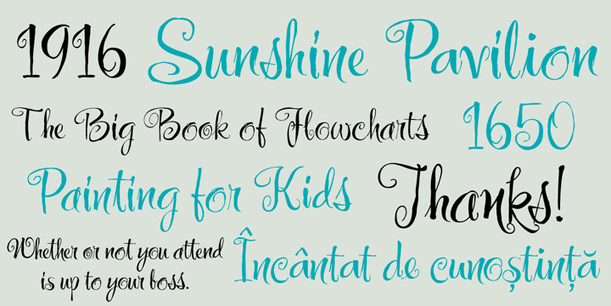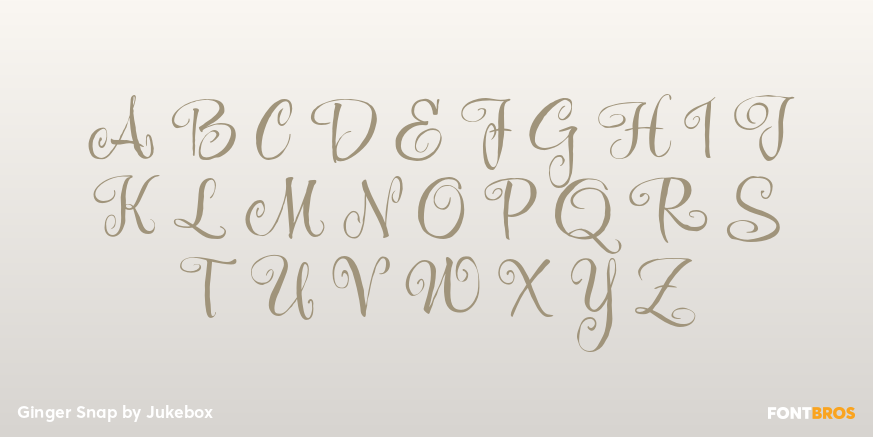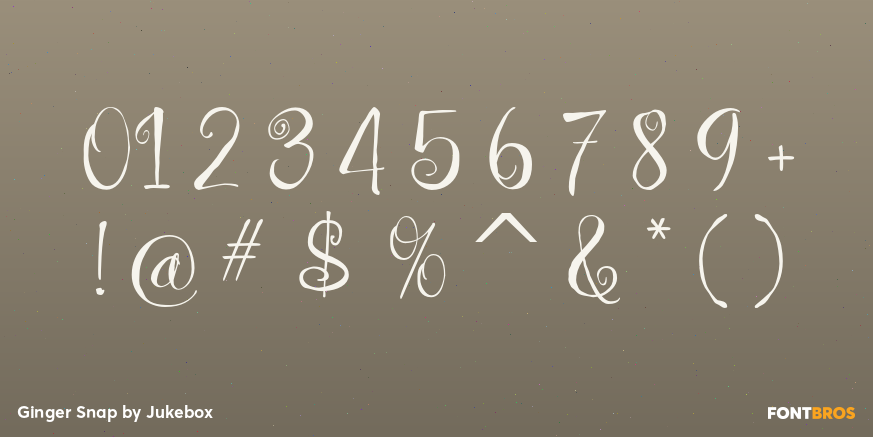
Ginger Snap
Font Family by Jukebox
Buy NowGinger Snap is an original Jukebox design that was inspired by a project I was working on in 2010, and is a fun, feminine script full of whimsy and joy. Ginger Snap has three versions of each letter, allowing the designer to create a font with a more hand-lettered look. These alternates can be applied via the glyph palette or with OpenType features.